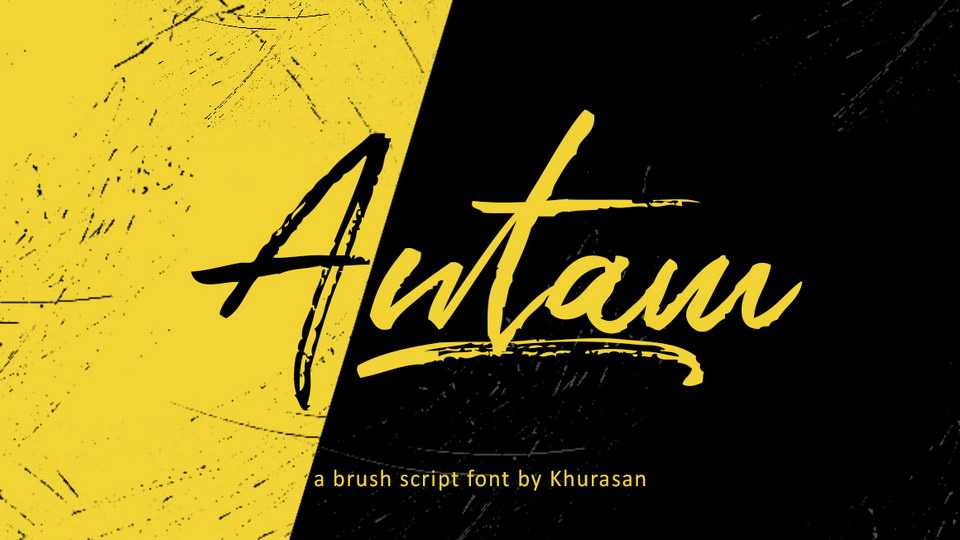
Download Antam font, a bold hand painted brush typeface with striking look. Antam font is best for posters and headlines, branding, packaging design and more.